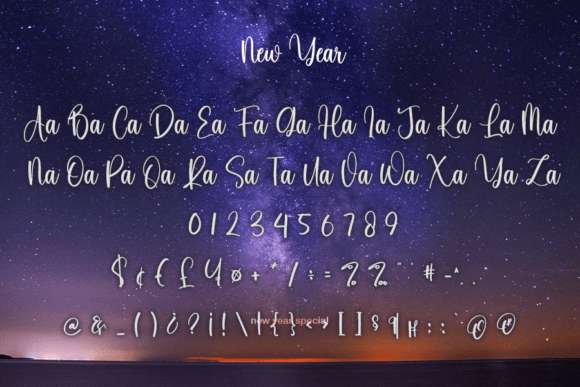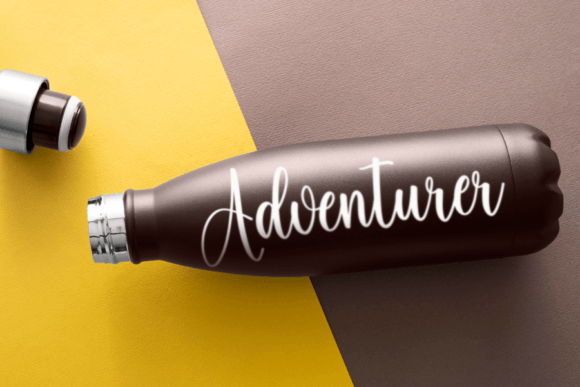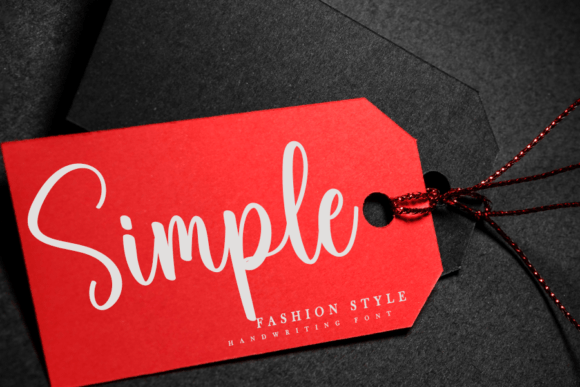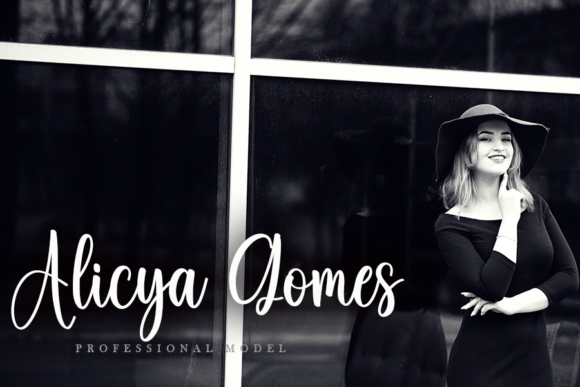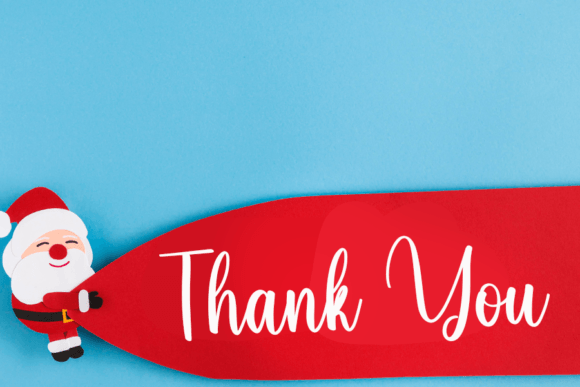
New Year Font
Ring in Style with the New Year Handwritten Font
The New Year Handwritten Font is a stunning, script-style font created to bring an elegant, artistic feel to all your design projects. Carefully crafted with soft curves and natural flow, this font is both magical and sophisticated—making it a perfect choice for modern creatives.
Whether you’re designing festive graphics, social media content, or DIY crafts, New Year adds a timeless flair that elevates your work.
Perfect for Instagram, DIY Projects, and Special Occasions
New Year shines in projects that need personality and a touch of glamour. Use it for Instagram posts, highlight covers, and stories that require a handcrafted aesthetic. It also works beautifully in wedding invitations, holiday cards, gift tags, and event signage.
Crafters will love how easily this font integrates into SVG files, printable quotes, planner pages, and scrapbooking elements. It’s especially useful for those seeking a calligraphy script with a bit of sparkle.
A Magical Script Font with Elegant Flair
The beauty of the New Year Handwritten Font lies in its balance between sophistication and whimsy. Its gentle, flowing strokes mimic the feel of modern calligraphy, offering an expressive and artistic look without compromising readability.
Even in smaller sizes, this font maintains its clarity—making it suitable for both headlines and body text. Whether you’re creating elegant titles or fine script details, New Year handles it all with grace.
Works Beautifully in Print and Digital Design
No matter your medium, the New Year font delivers professional results. It performs seamlessly in high-resolution print projects like greeting cards, T-shirts, and posters. At the same time, it’s equally effective in digital formats such as blog headers, web banners, and social content.
Pair it with a clean serif or minimalist sans-serif font to create striking design contrast. This allows the handwritten script to stand out while keeping your layout polished and easy to read.
Why Designers Love New Year Handwritten Font
Here are a few reasons this font deserves a place in your design toolkit:
• Elegant and magical handwritten style
• Perfect for Instagram, crafts, and events
• Beautiful, legible letterforms at any size
• Works well in both print and digital formats
Add Elegance to Every Design
In conclusion, the New Year Handwritten Font is a must-have for anyone looking to infuse their designs with charm and sophistication. Whether you’re sharing content online or crafting for a special occasion, this font turns ordinary text into something truly artistic.
If you’re searching for a script font that’s modern, graceful, and incredibly versatile, New Year is the perfect font to welcome every design with style.